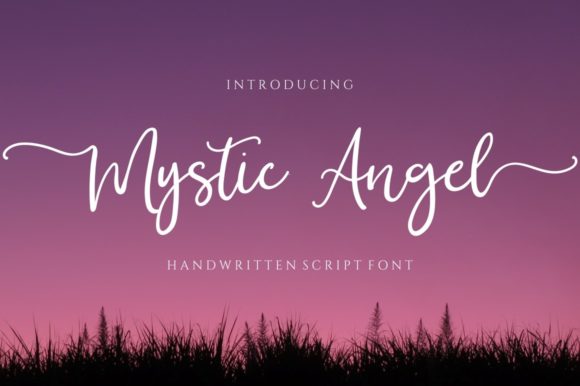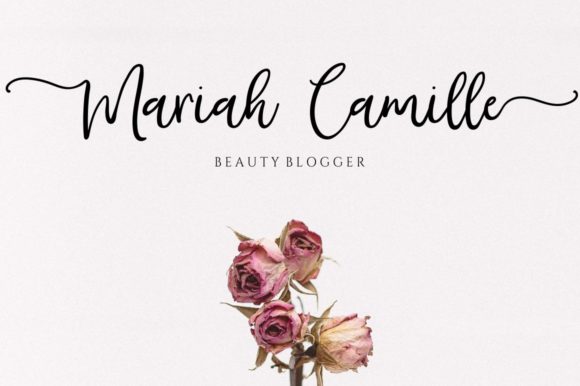
About Mystic Angel Font
Mystic Angel is a stylish and delicate script font. It has a clean, thin and smooth vibe and it will be a hit for any design that you want to add it to. This font is PUA encoded which means you can access all of the glyphs and swashes with ease!